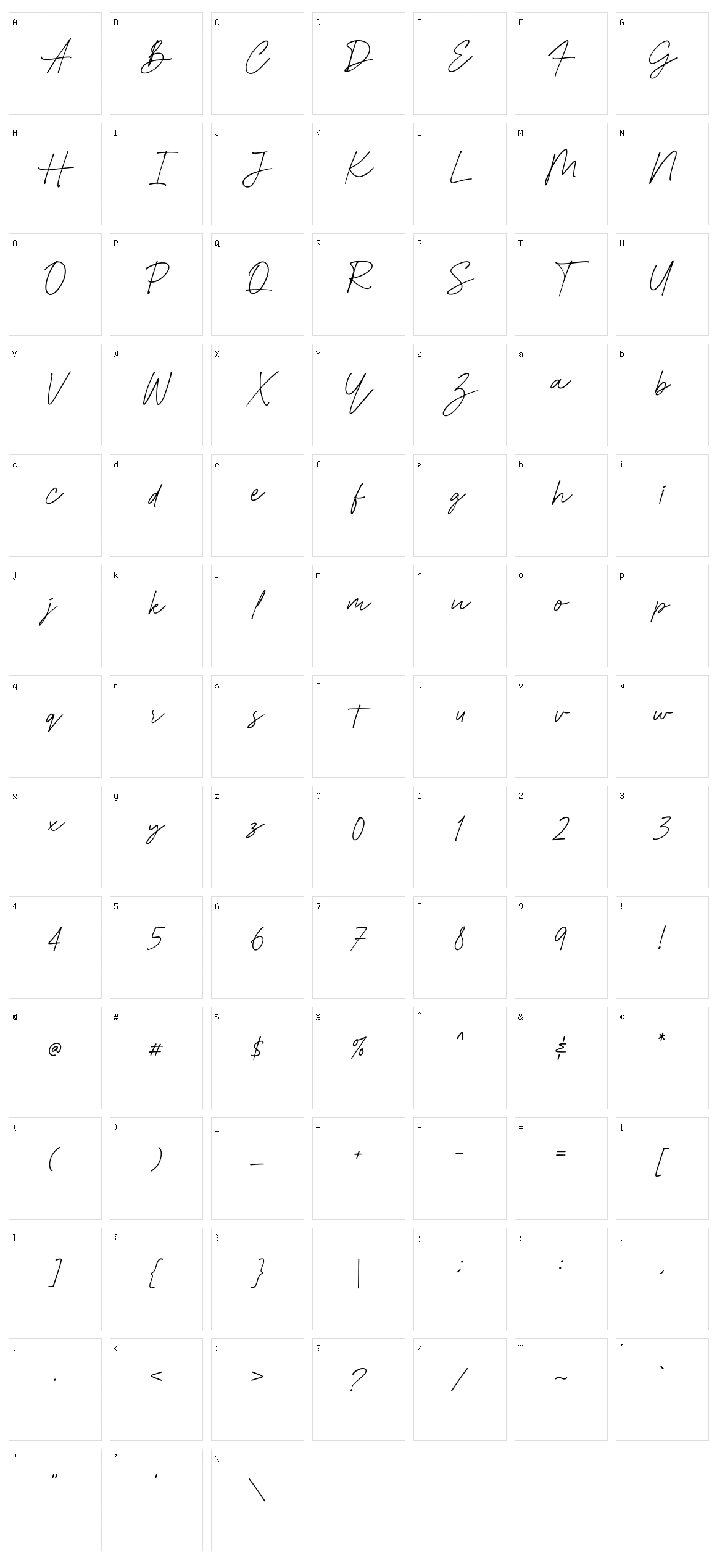
The free font Christnolan is carefully designed by Allouse Studio, showcasing a thoughtful balance of creativity and usability and falls under the Script font style. When you download the ZIP file, it contains only 18.23 KB of font files, making it lightweight and quick to download. Please review the license details below to understand permitted usage and distribution rights. If license information is not available, we recommend using this font for personal projects only or contacting the author directly for commercial usage permissions.